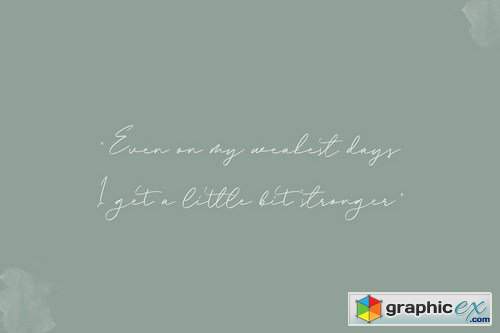
Ballarat Brush Signature Font
Ballarat | Brush Signature Font with a calligraphy style, So beautiful on invitation like greeting cards, branding materials, business cards, quotes, posters, and more!